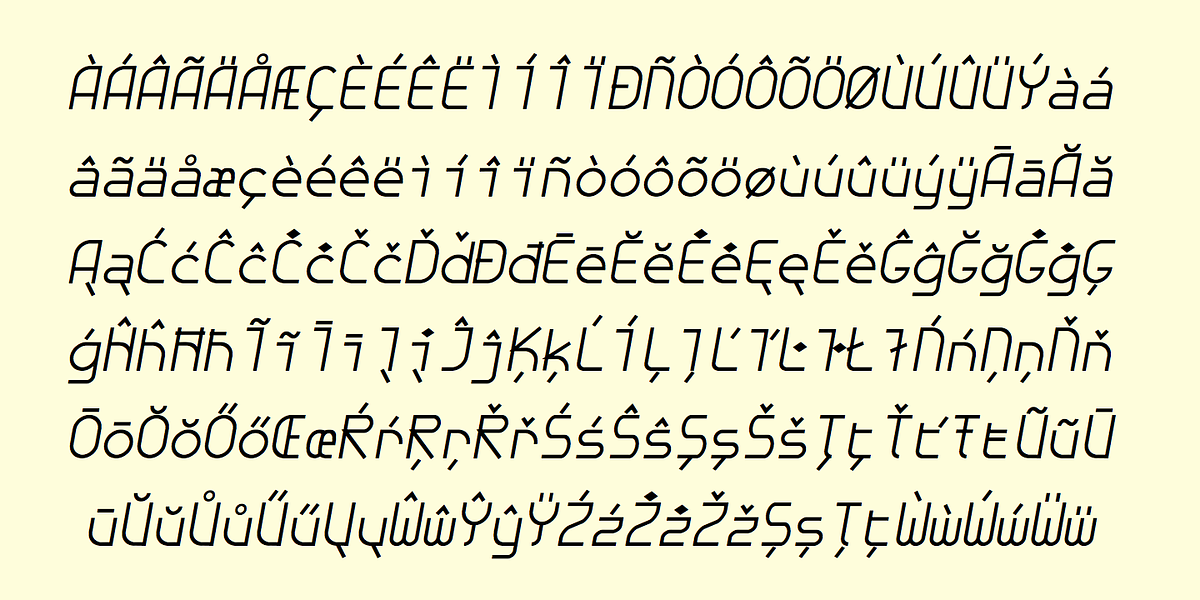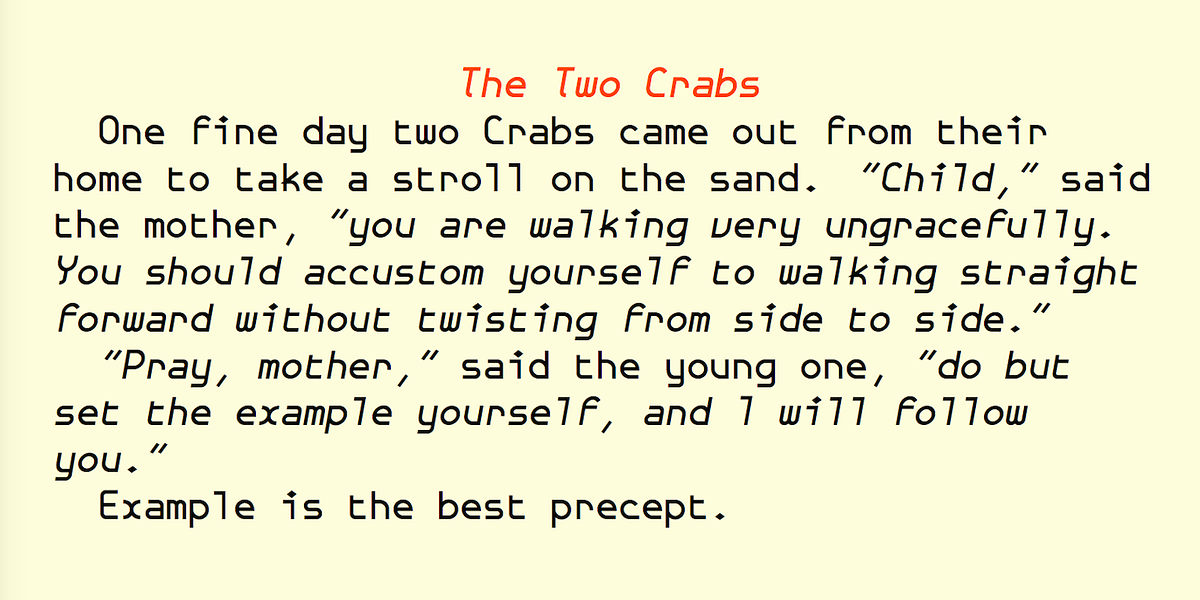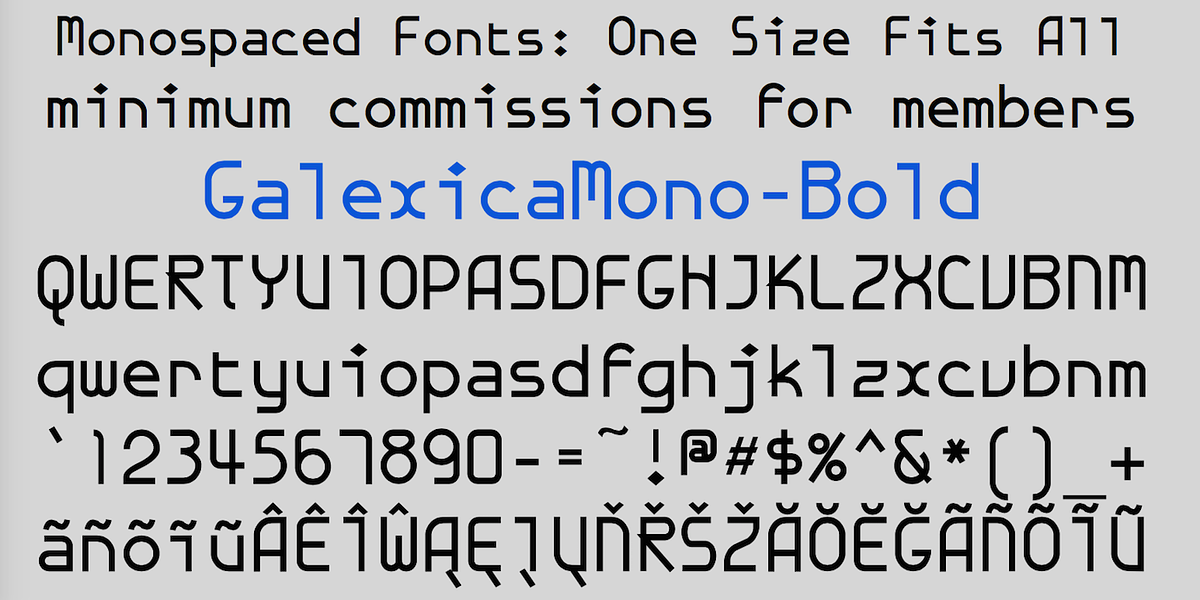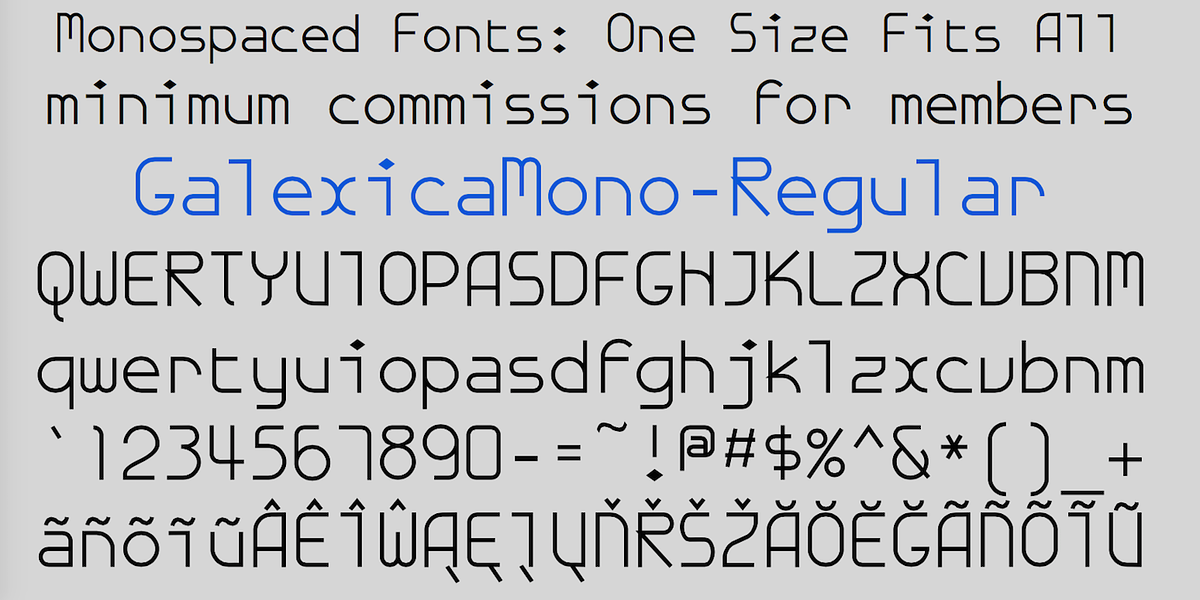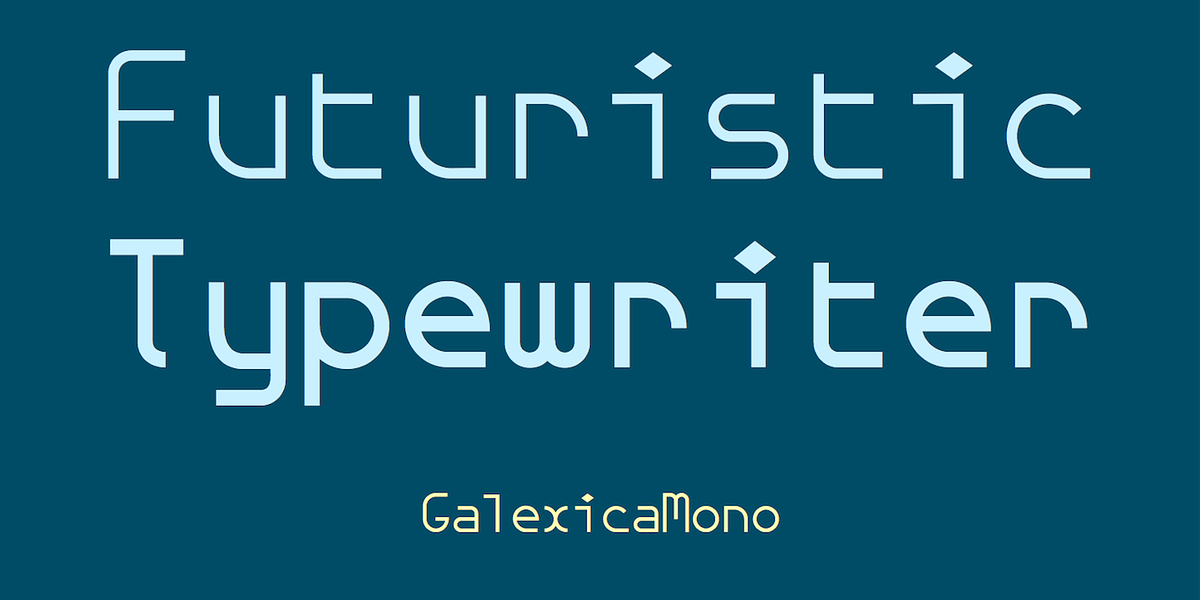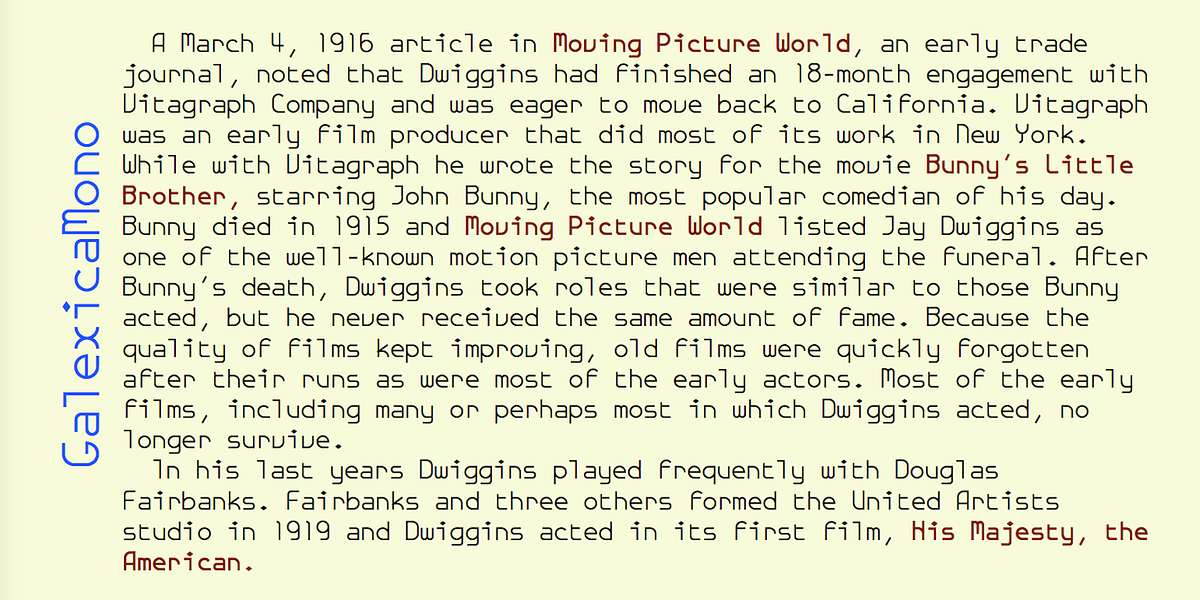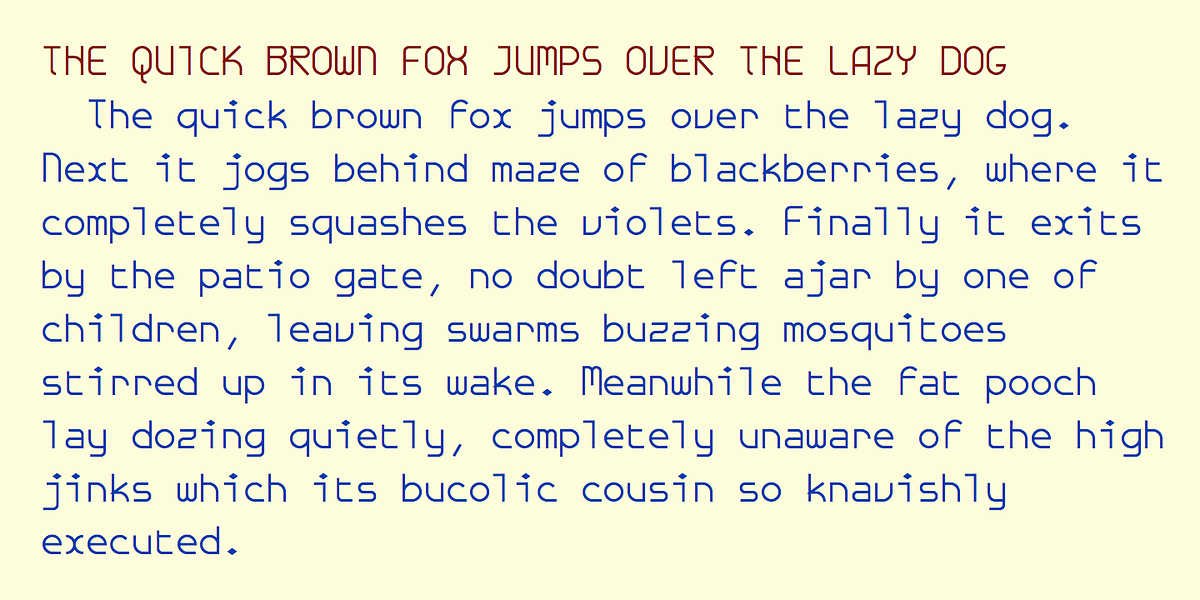
GalexicaMono
GalexicaMono is a unique take on the typewriter font genre. It embraces a sans-serif design with geometric shapes, lending it a futuristic feel. Unlike traditional typewriter fonts, which often feature serif details and a monospaced structure, GalexicaMono opts for a clean, modern aesthetic. The font family includes two weights: plain and bold, each with an oblique style.